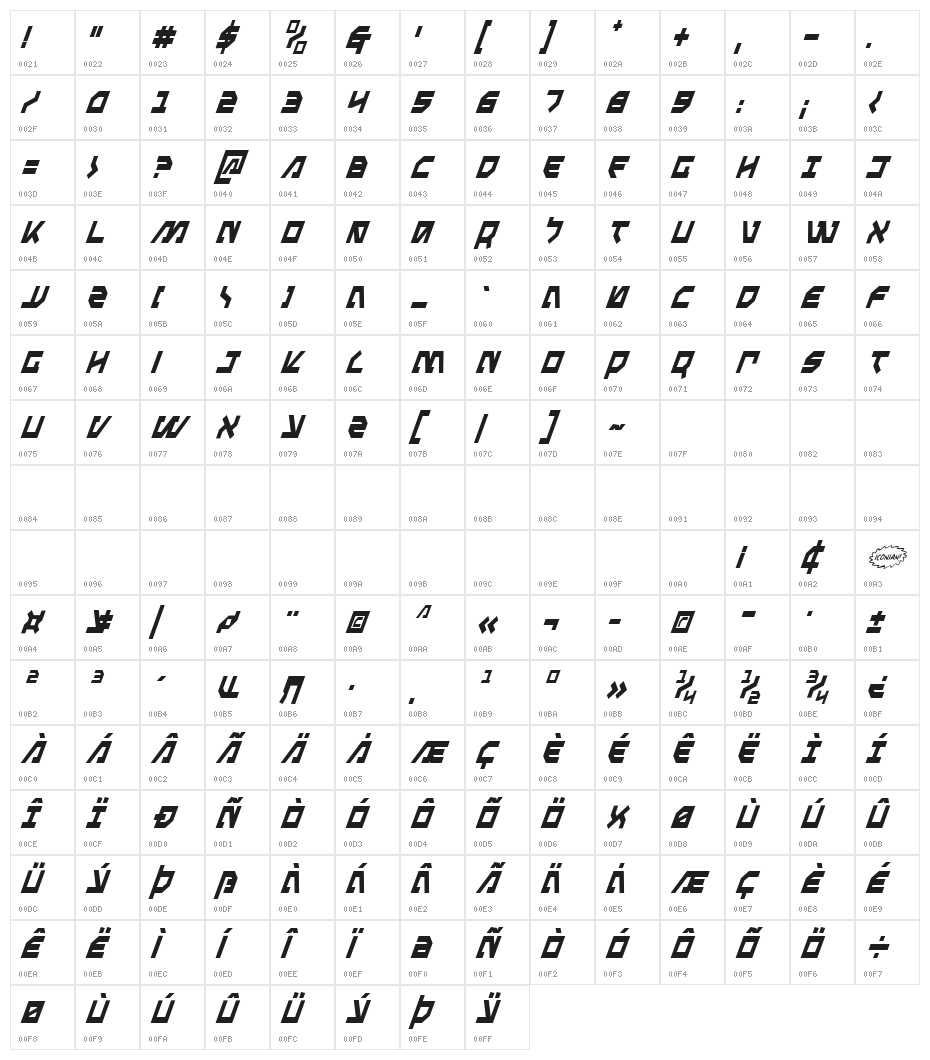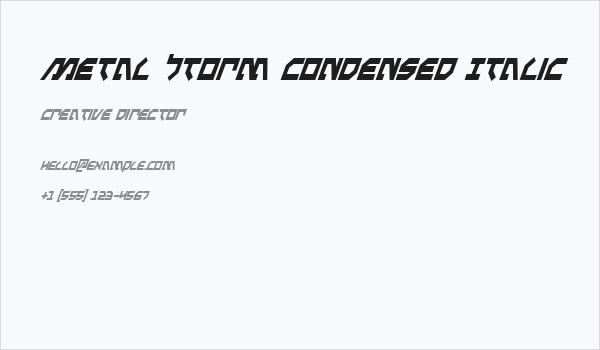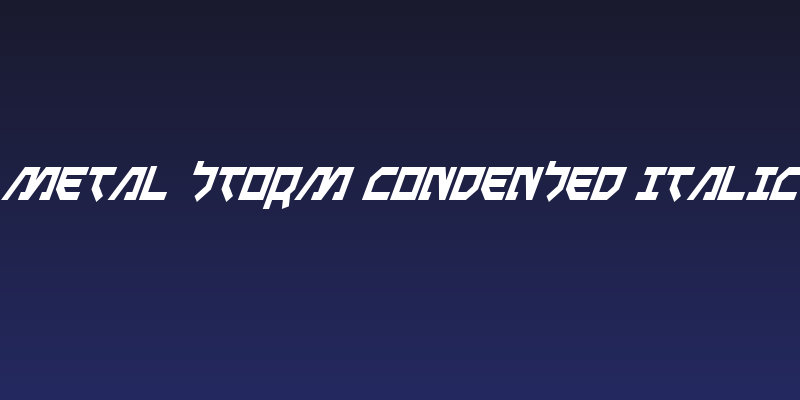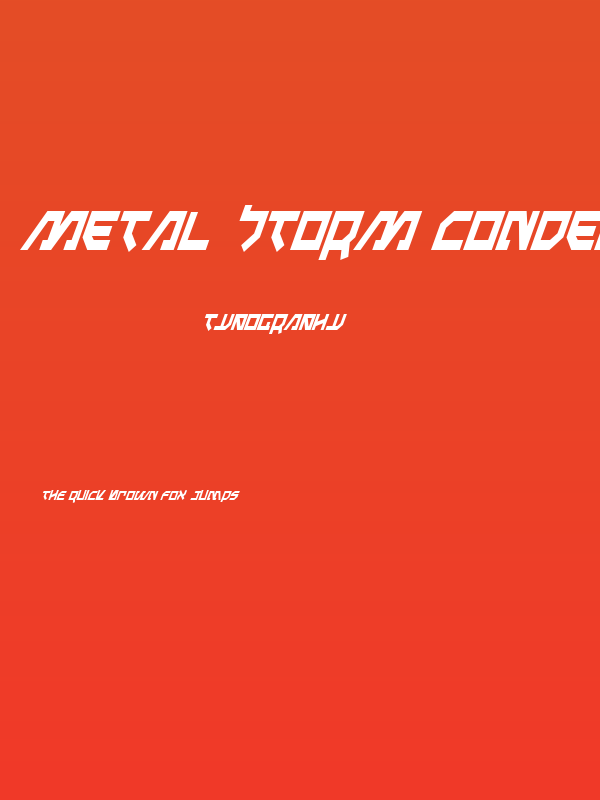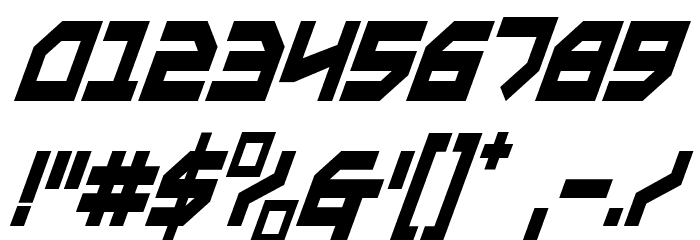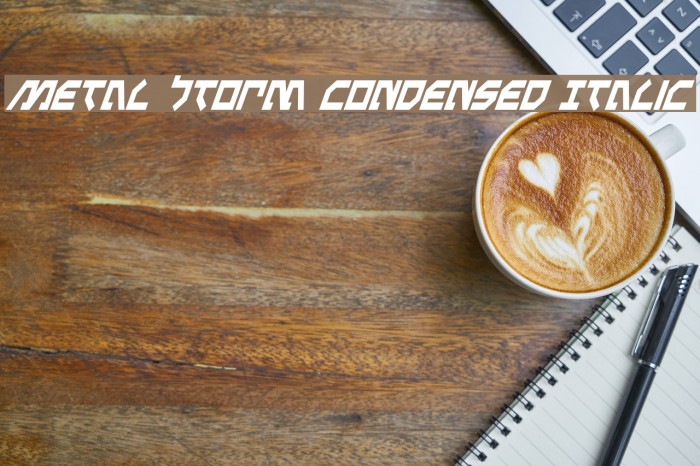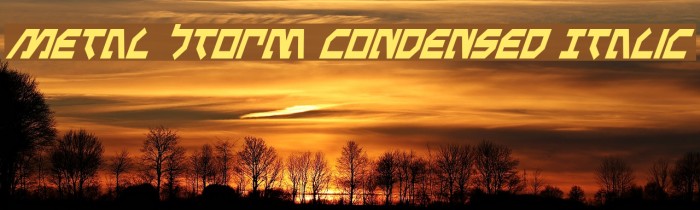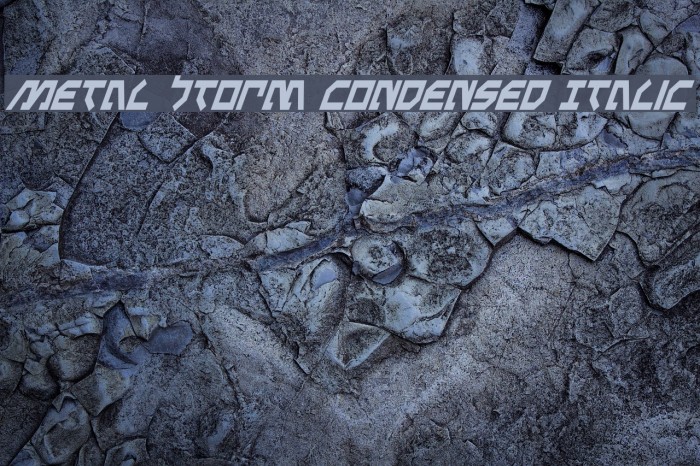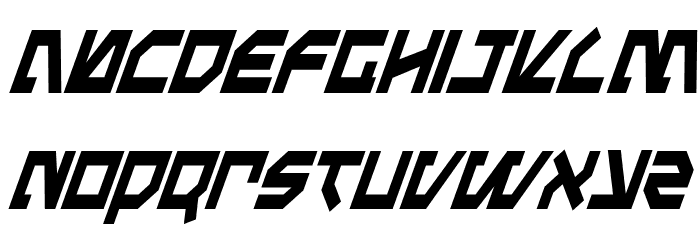
Metal Storm Condensed Italic Font
Metal Storm Condensed Italic Description
This font features a bold, angular design with a futuristic and aggressive aesthetic. The characters are sharply defined with a condensed structure, giving them a compact appearance. The italic style adds a dynamic, forward-leaning slant, enhancing the sense of motion and speed. The strokes are thick and consistent, providing a strong visual impact. This font is particularly suited for projects that require a modern, edgy look, such as technology branding, sports team logos, or video game titles. The character spacing is tight, contributing to its compact and cohesive appearance.
| Use Case | Logos, Headlines |
| Proposed Projects | Ideal for technology branding, sports logos, video game titles, and edgy promotional materials. |